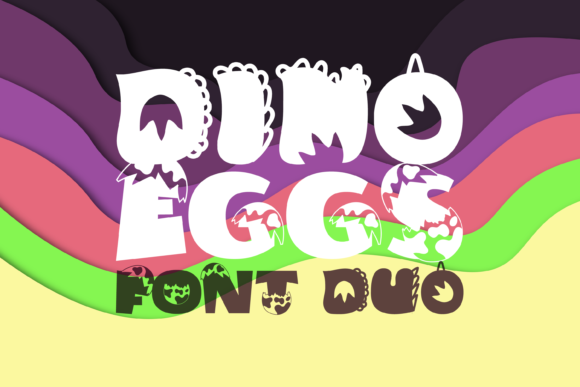
Unleash the Power of Prehistoric Fun with Dino Eggs Duo Font
Remember the excitement of discovering a hidden stash of crayons in your childhood art box? The possibilities seemed endless as you brought your imagination to life with vibrant colors and bold strokes. As a creative individual, you’ve probably experienced moments like this, where the right tool can spark an entire world of ideas.
For designers looking to inject a playful touch into their work, the Dino Eggs Duo Font is a treasure trove of creativity. This unique font is perfect for cartoon-related designs, children’s games, and any project that requires a whimsical flair. The Dino Eggs Duo Font offers a valuable asset for designers seeking to add an extra layer of personality to their creations.
Dino Eggs Duo Font Key Features
- Unique Characteristics: The Dino Eggs Duo Font features a unique, playful design with a dinosaur egg theme, making it perfect for use in children’s books, educational materials, and other projects where a fun and engaging font is desired.
- Characters and Glyphs: The font includes a wide range of characters and glyphs, including uppercase and lowercase letters, numbers, punctuation marks, and special characters.
Dino Eggs Duo Font Review
I recently had the chance to work with the Dino Eggs Duo Font, and I have to say it’s an interesting addition to the font family. ✨ One thing that really stands out is the unique, playful feel of the font. The combination of a dinosaur egg-inspired design and a duo-style layout makes for a visually striking visual effect.
Here are some key features that I think work well:
- ✨ The font is highly customizable, allowing you to adjust the size, color, and spacing to suit your design needs.
- ✨ The font is incredibly versatile and can be used in a wide range of contexts, from children’s books to social media graphics.
- ✨ The duo-style layout adds a fun, dynamic element to your design, making it perfect for titles and headings.
- ⚠️ The font may not be the best choice for formal or professional designs, as it can come across as too playful or childish.
- ⚠️ The font may not be as readable in smaller sizes, so it’s best to use it in larger formats.
Overall, I think the Dino Eggs Duo Font is a fun and creative addition to any design project. While it may not be suitable for every situation, it’s definitely worth considering for projects where you want to add a playful touch.
Tips for Getting the Most Out of Dino Eggs Duo Font
For the best results, use Dino Eggs Duo Font for titles, headings, and emphasis. It’s also recommended to pair it with a clean sans-serif font for body text.
Dino Eggs Duo Font is ideal for:
– Children’s book covers
– Prehistoric or dinosaur-themed designs
– Retro or vintage-style graphics
– Educational materials and presentations